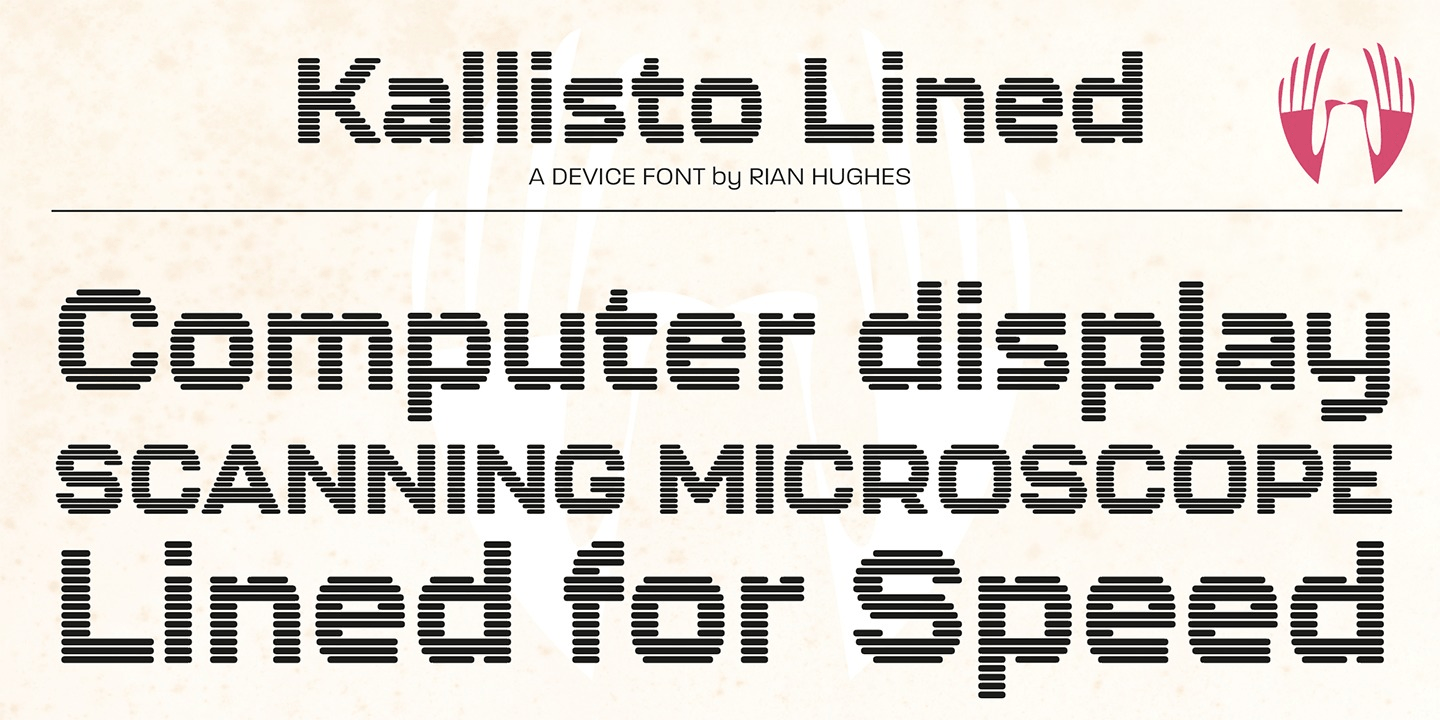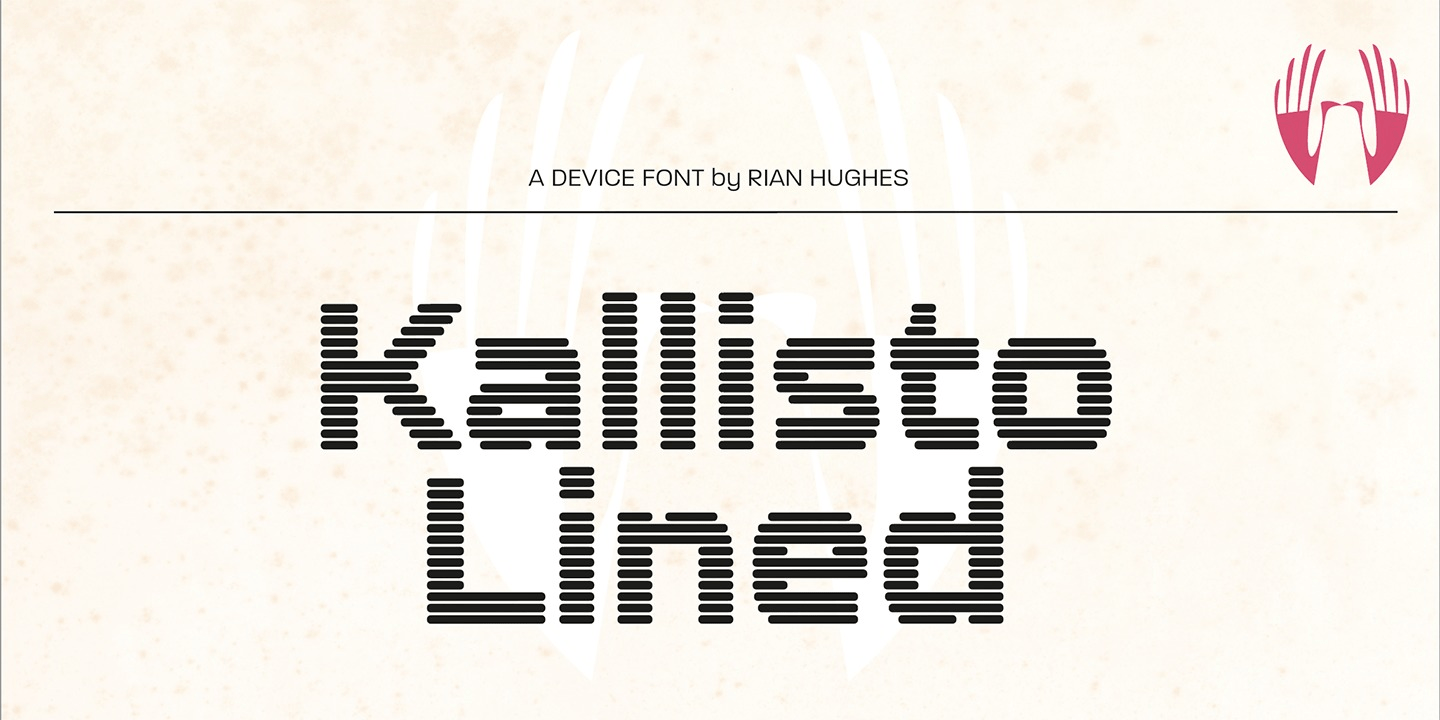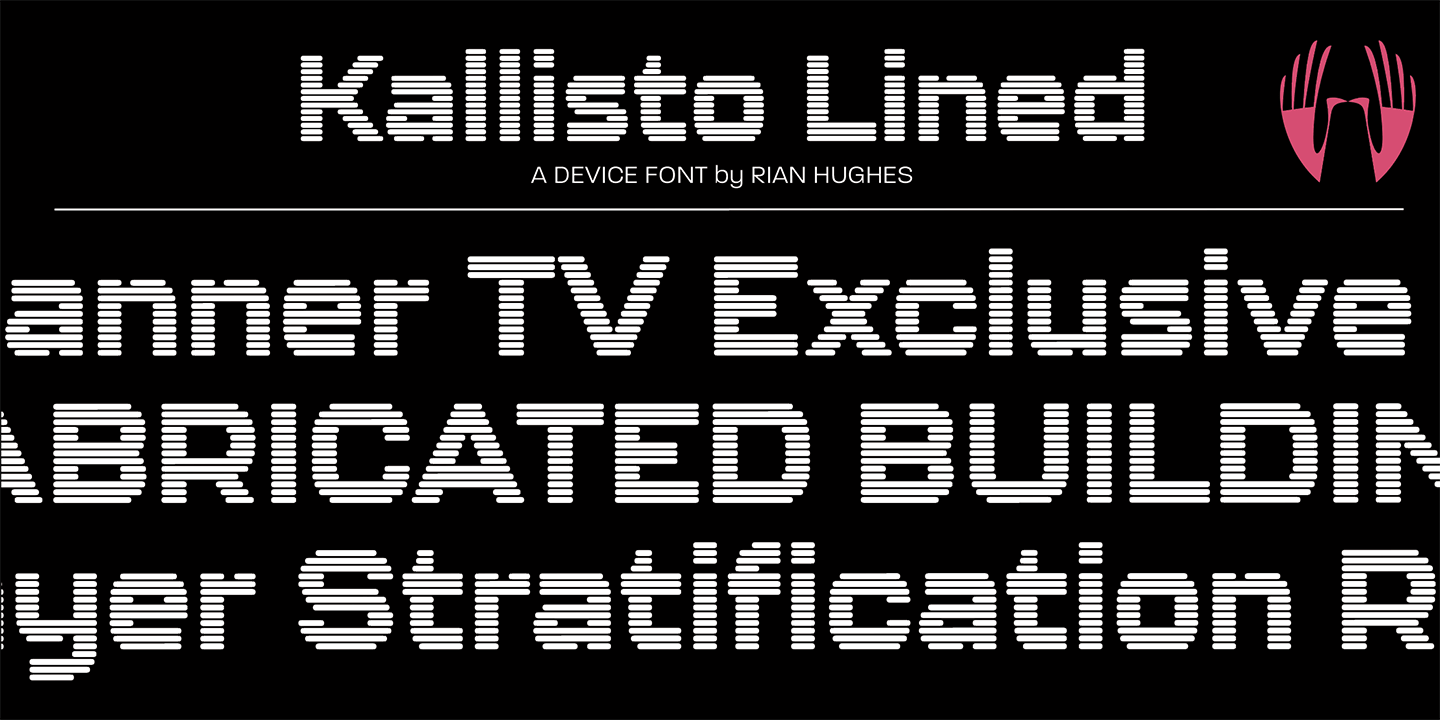
Kallisto Lined
Font Family by Device Fonts
A lined variant of Kallisto, suggestive of scan lines, speed and display screens. Kallisto weds a rational, machine-made aesthetic with a certain warmth that derives from more familiar letter shapes found on diestamped or embossed boilerplate signs.